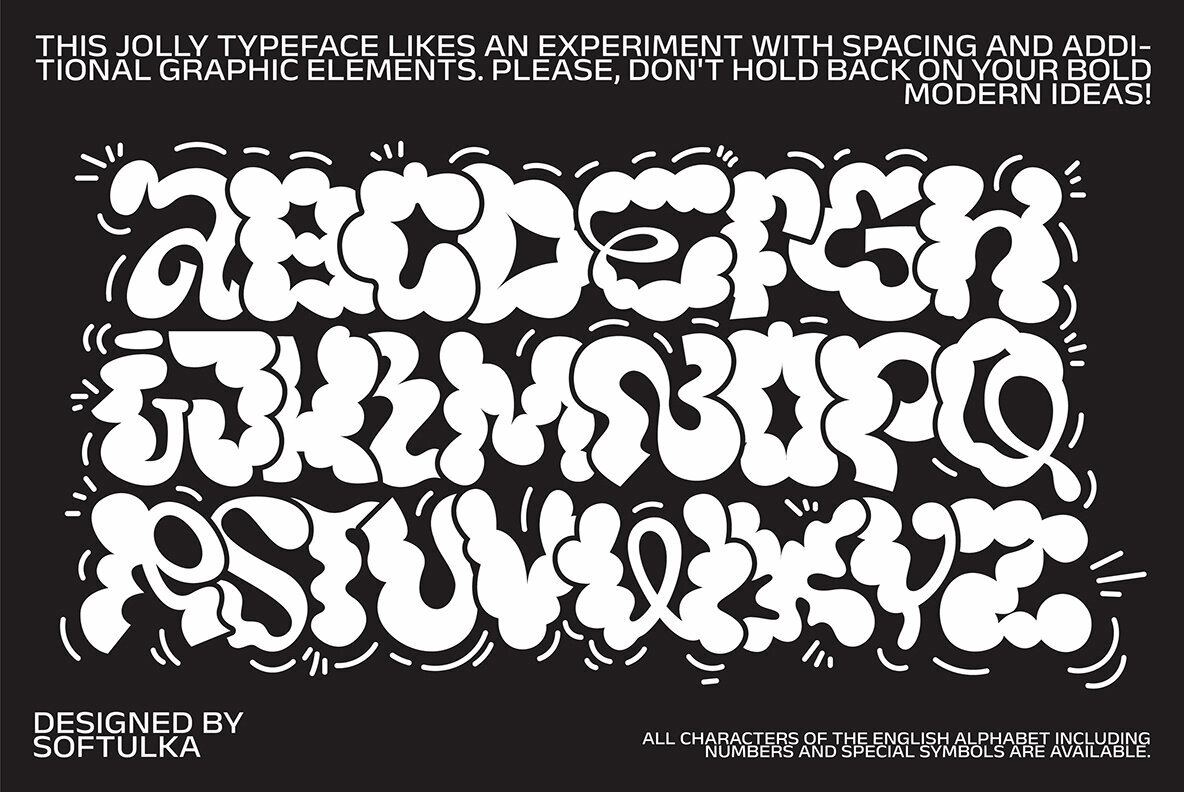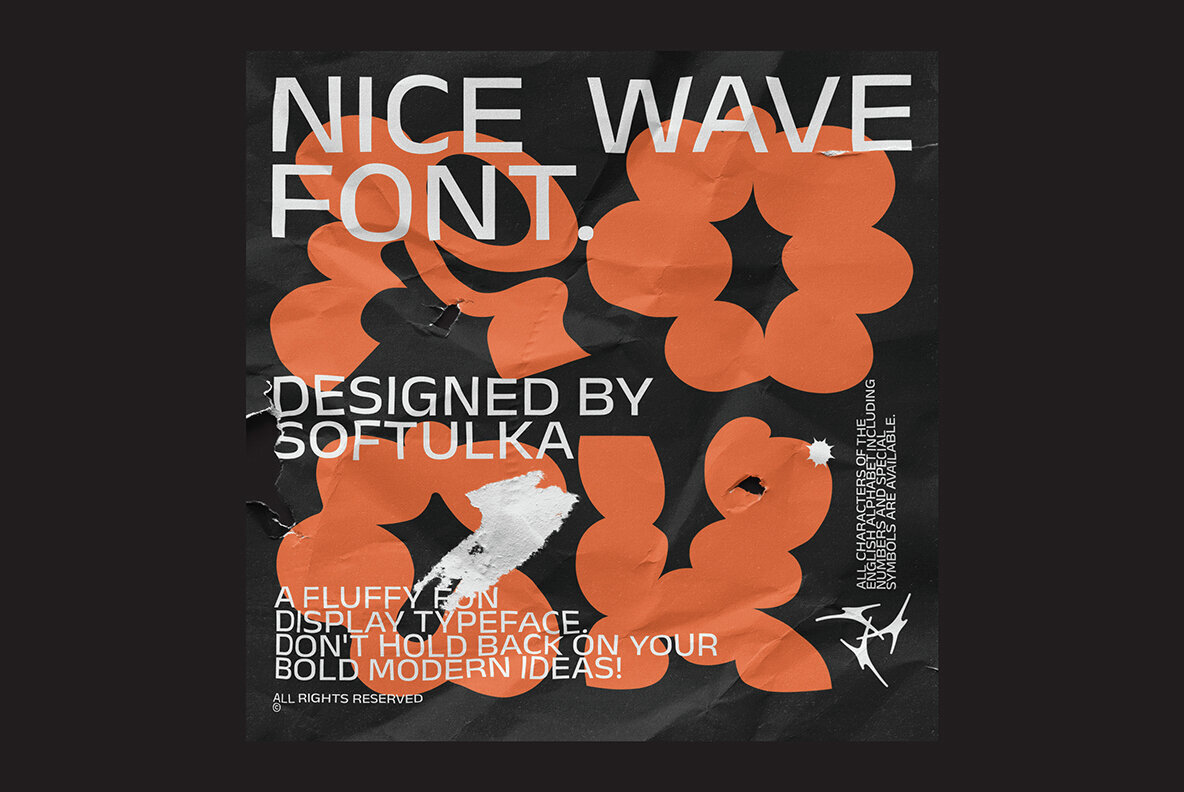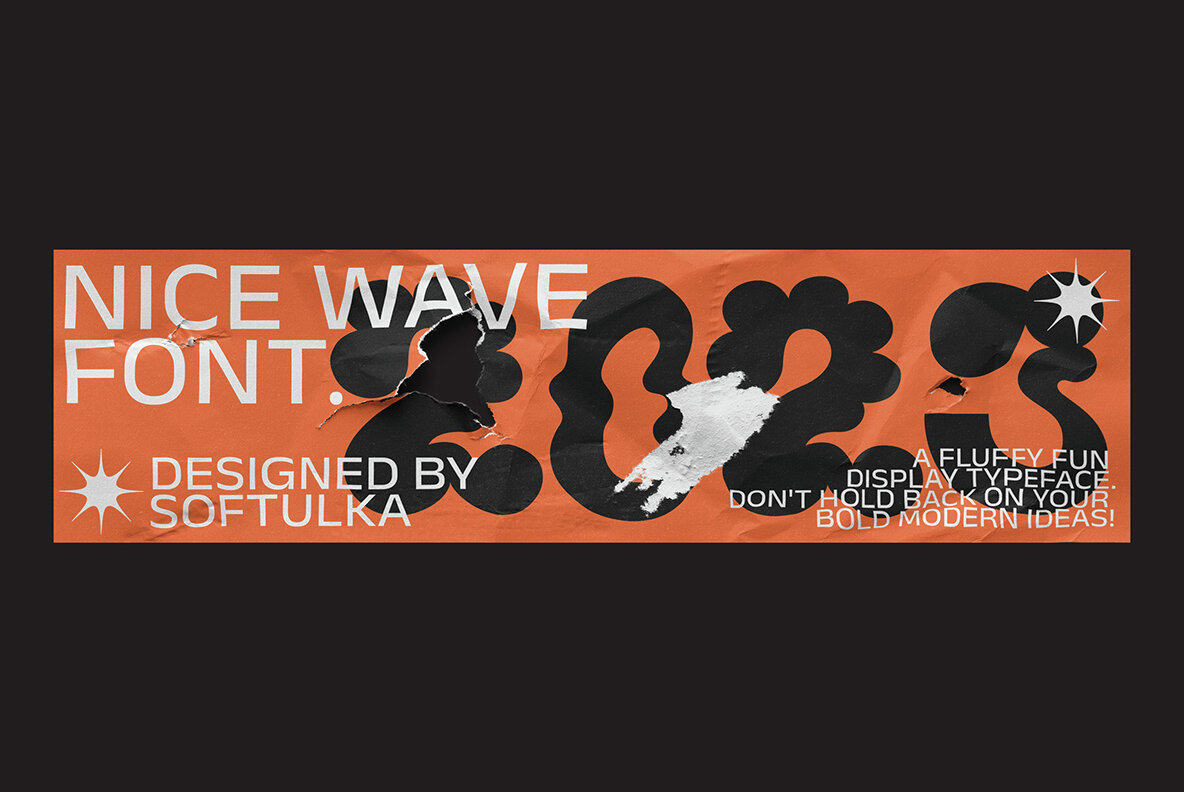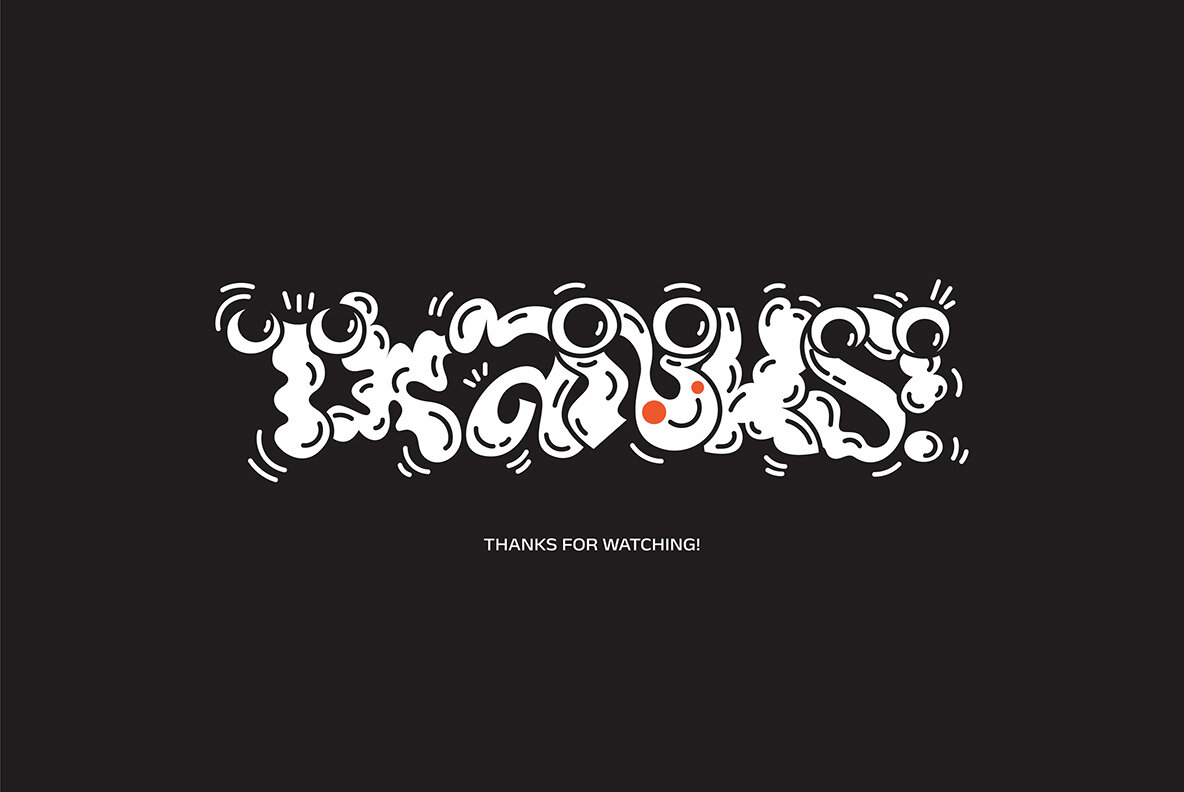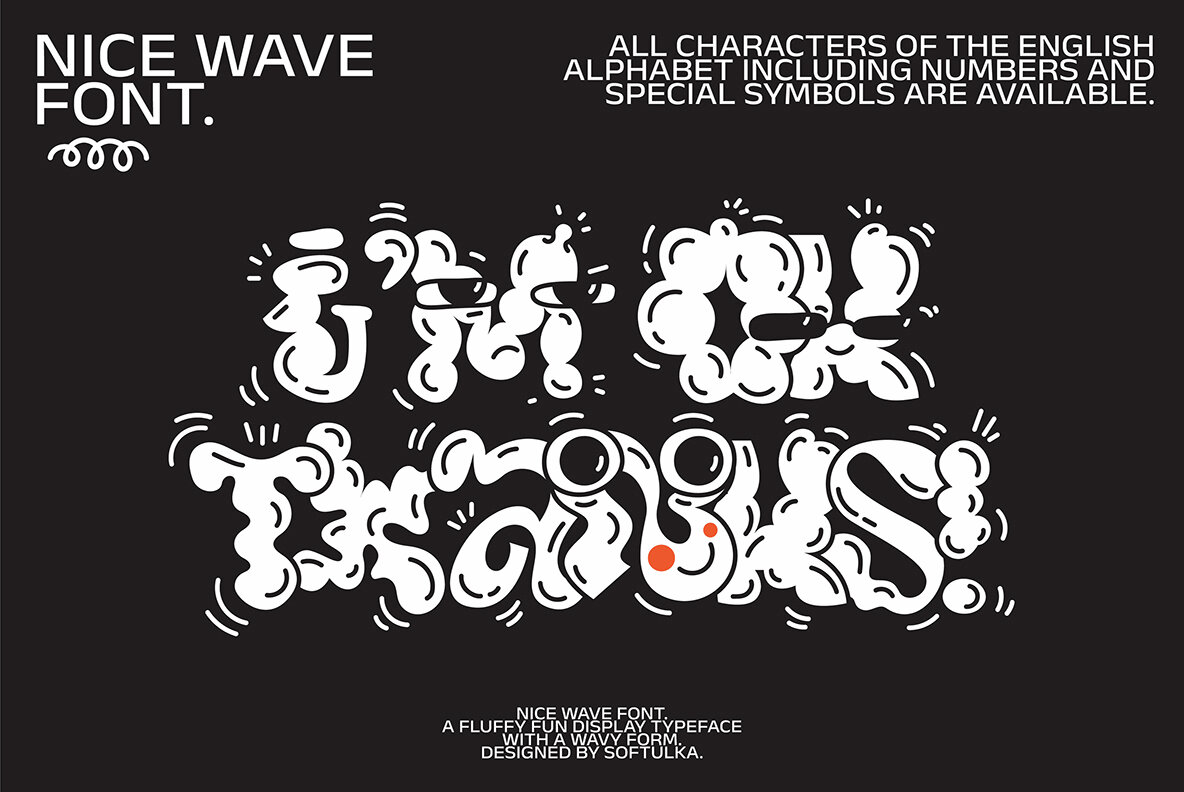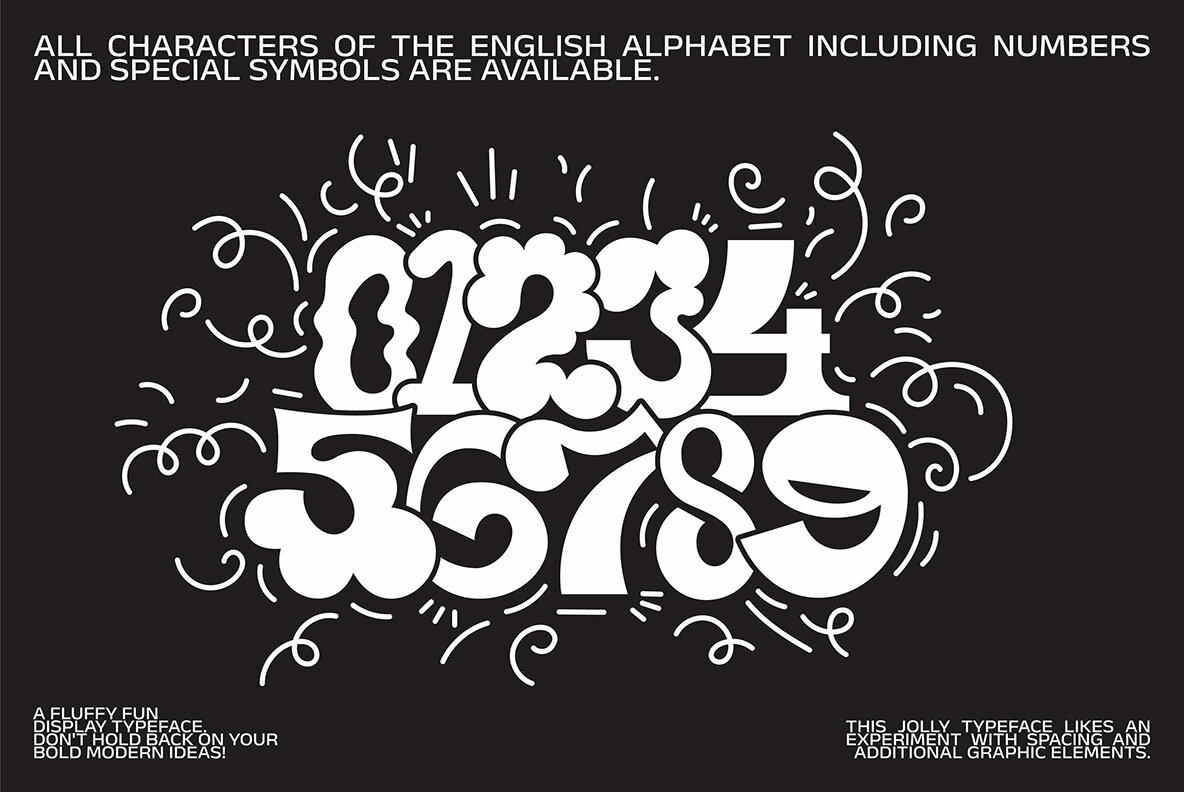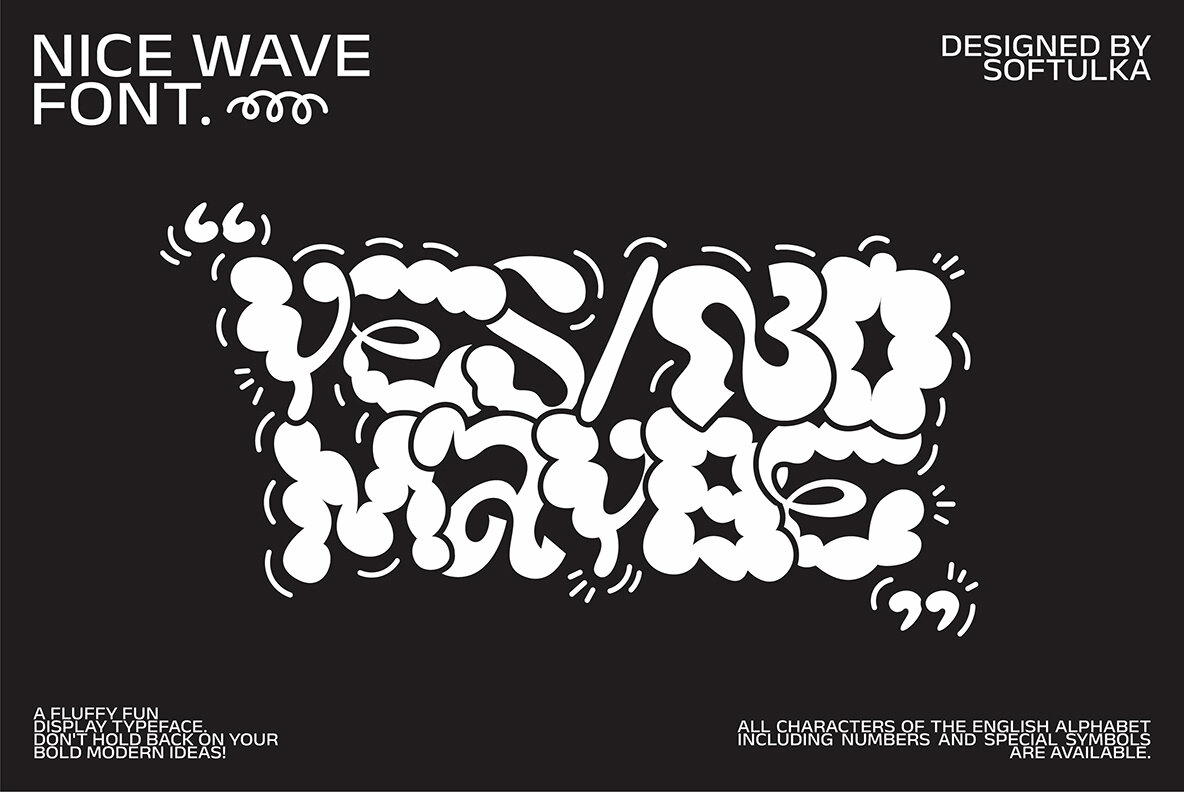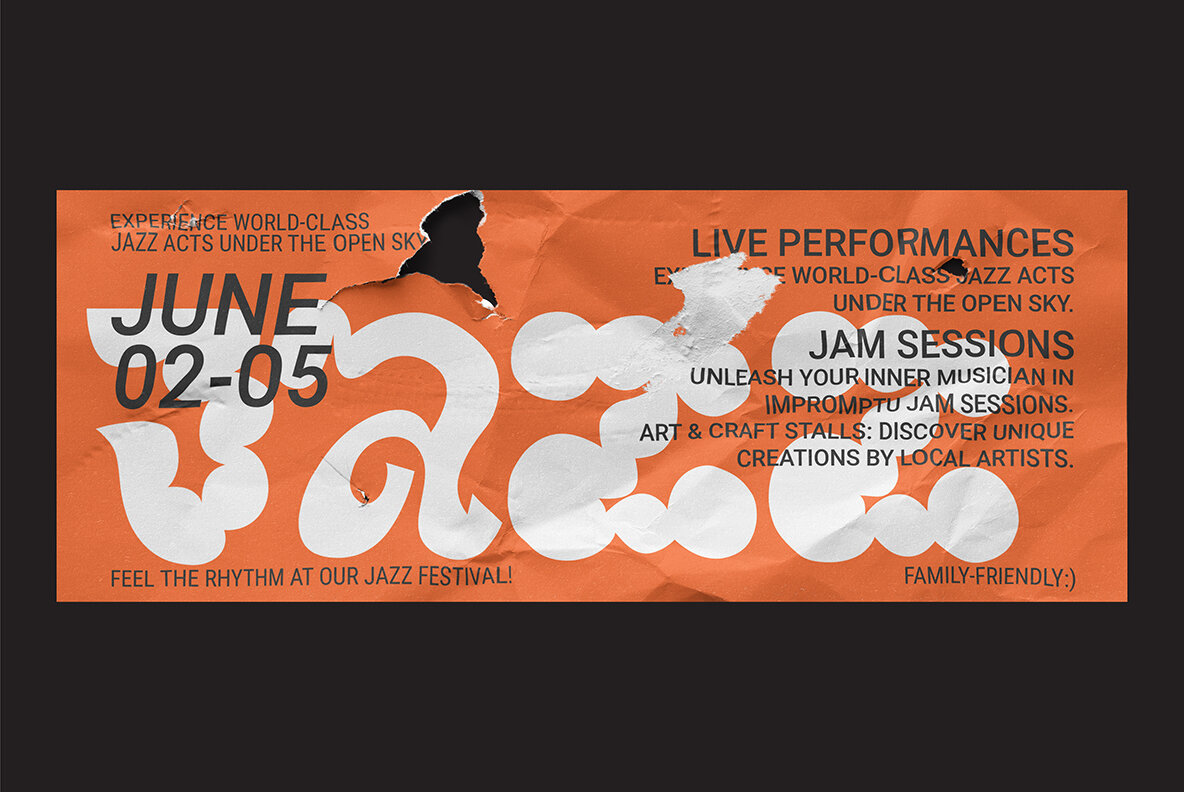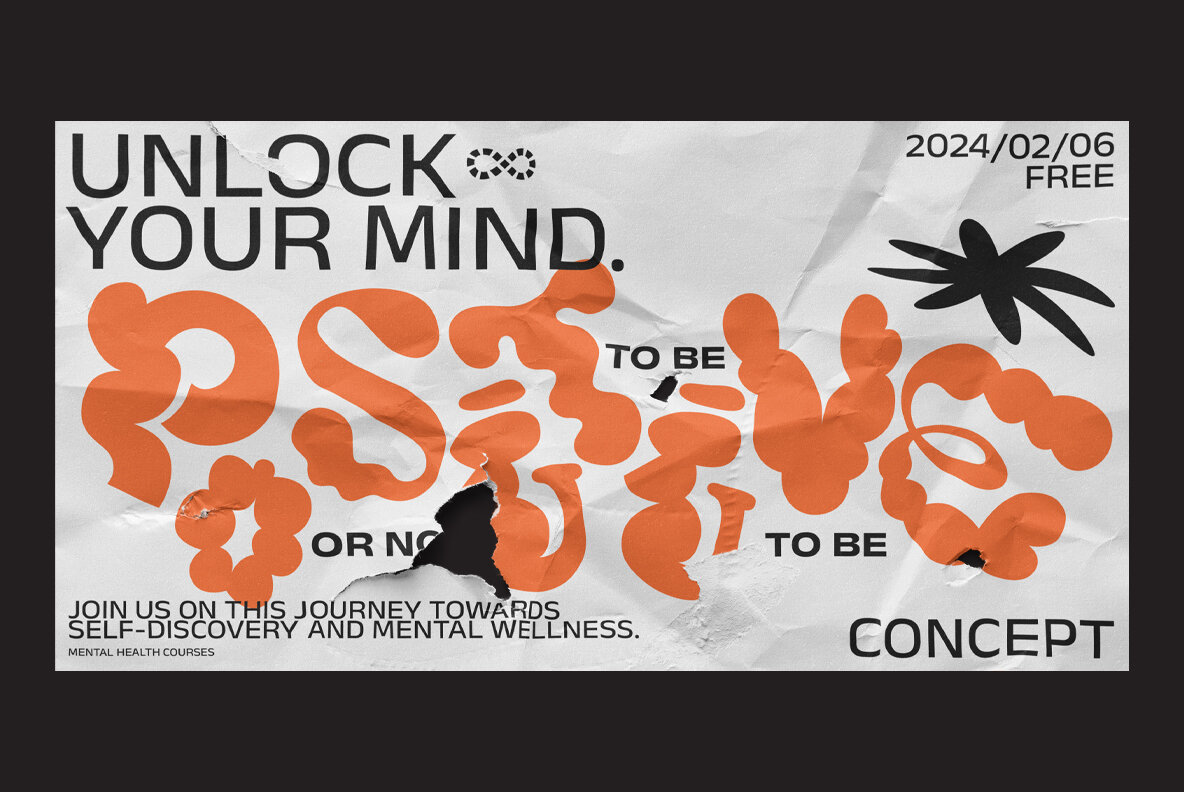
Nice Wave Font
Nice Wave
Nice Wave is a decorative display typeface characterized by its fluffy, wavy form. Perfect for making a bold statement, this font is ideal for eye-catching titles, festival posters, and standout graphic elements on T-shirts and hoodies. It's also an excellent choice for creative backgrounds. Embrace your modern, bold ideas with Nice Wave and experiment with spacing and graphic elements.Nice Wave: Bold Display Typeface with a Wavy Twist